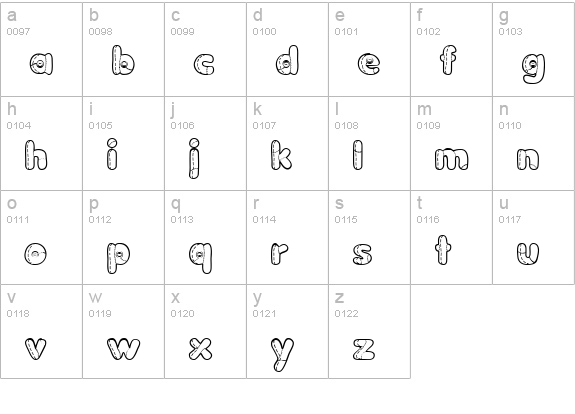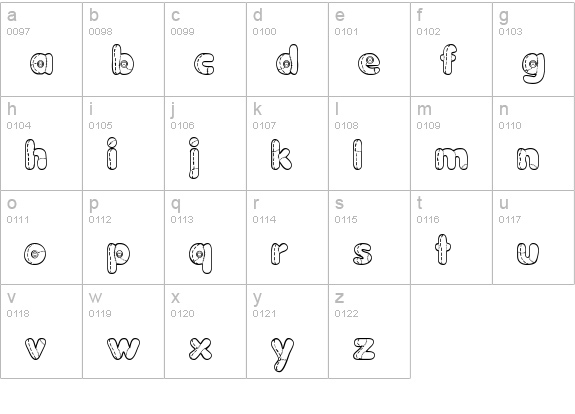
Boneca de Pano Font Details
Boneca de Pano font is a charming and whimsical typeface that exudes a playful and handmade feel. Designed with intricate details and a unique hand-drawn style, this font is perfect for adding a touch of creativity to your projects. The soft, rounded edges and slightly uneven lines give Boneca de Pano a warm and inviting look, making it ideal for a variety of design applications. Best of all, Boneca de Pano font is available for free download at FontsMarket.com. Whether you're working on a children's book, greeting cards, posters, or any other creative project, this font will bring a delightful and personal touch to your designs. Embrace the handmade aesthetic and let Boneca de Pano font inspire your next project.